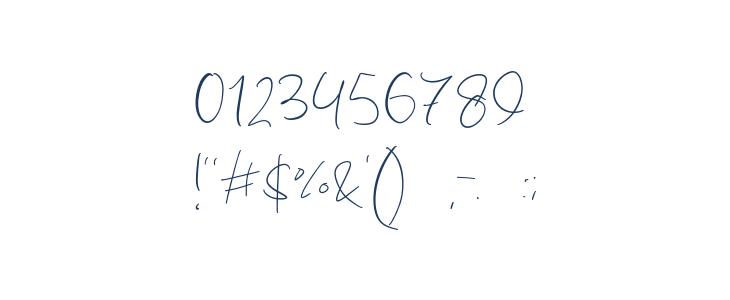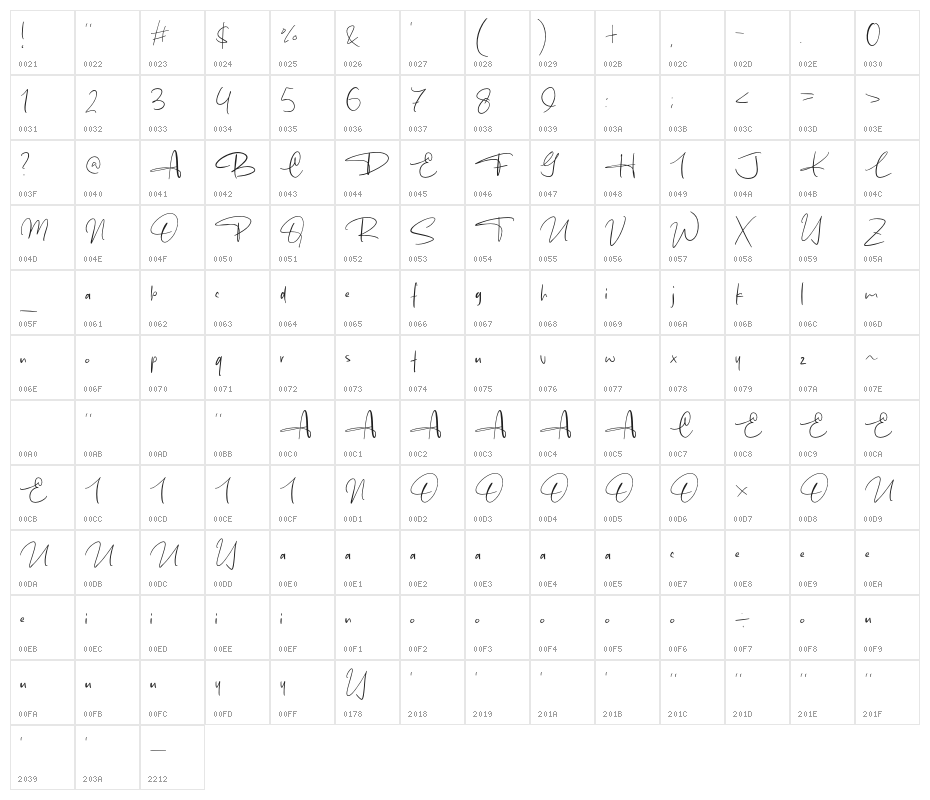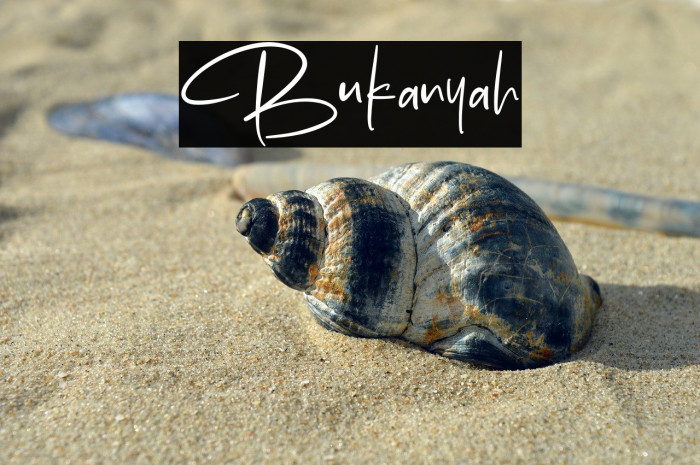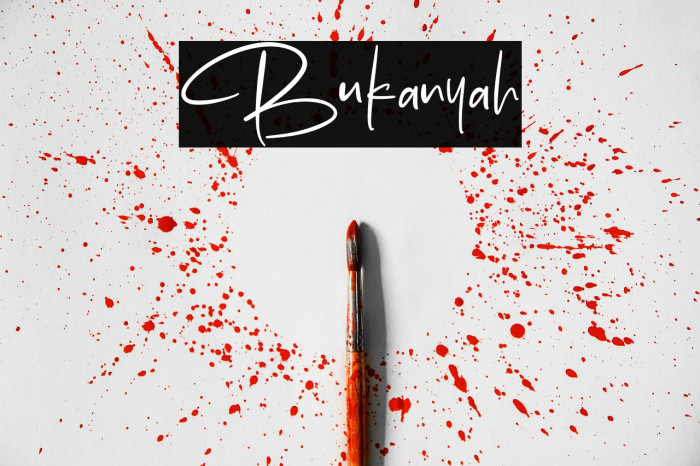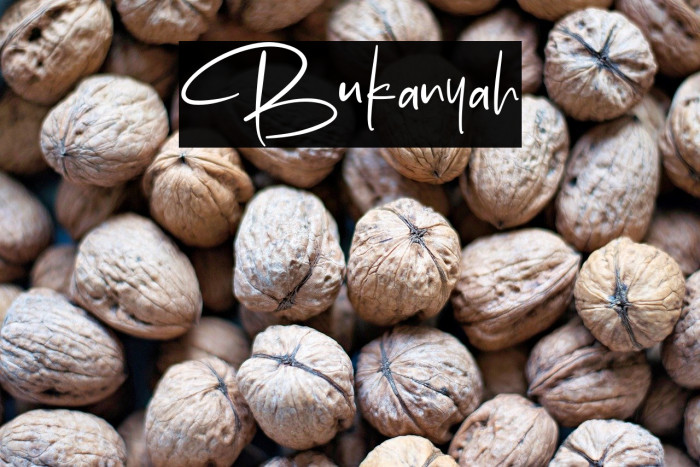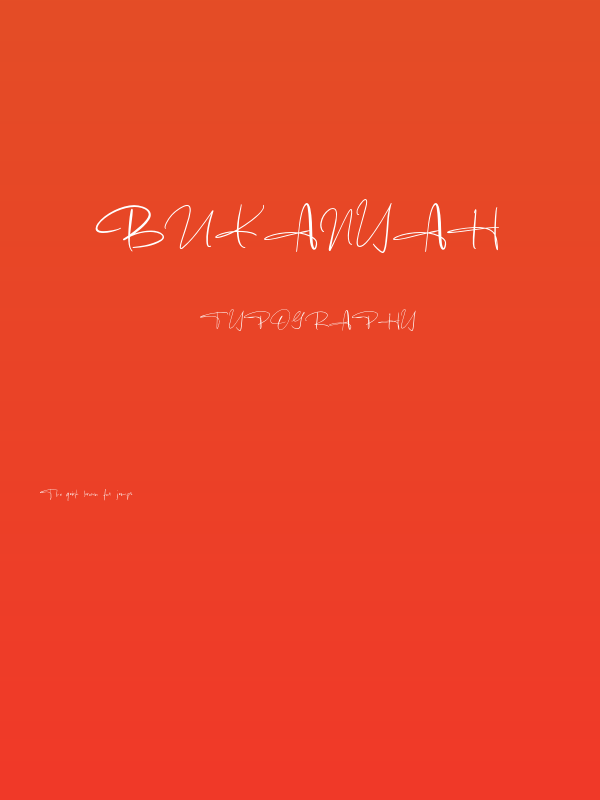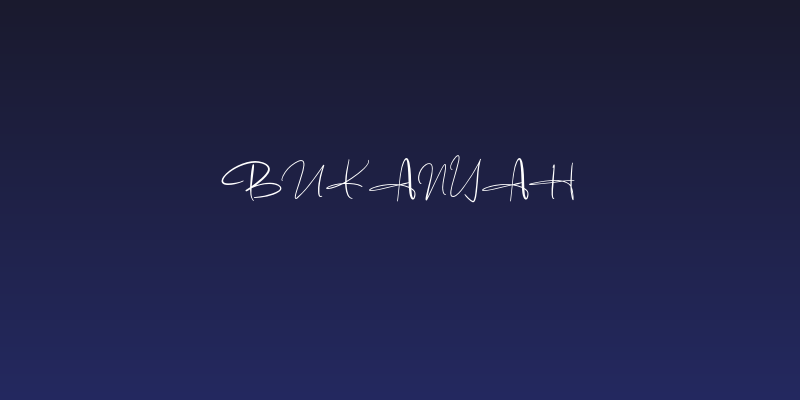
Bukanyah Font
Bukanyah Description
This font exudes a casual and handwritten style, characterized by its fluid and organic strokes. The letters have a playful and informal appearance, with varying line thickness that adds a dynamic and lively feel. The uppercase letters are bold and slightly larger, while the lowercase letters maintain a consistent flow, enhancing readability. The numerals are clear and distinct, complementing the overall aesthetic. Special characters are integrated seamlessly, maintaining the font's cohesive look. This font is perfect for projects that require a personal touch, conveying warmth and approachability.
| Use Case | Headlines, Informal text, Personal projects |
| Proposed Projects | Ideal for greeting cards, personal branding, social media graphics, and informal invitations. |